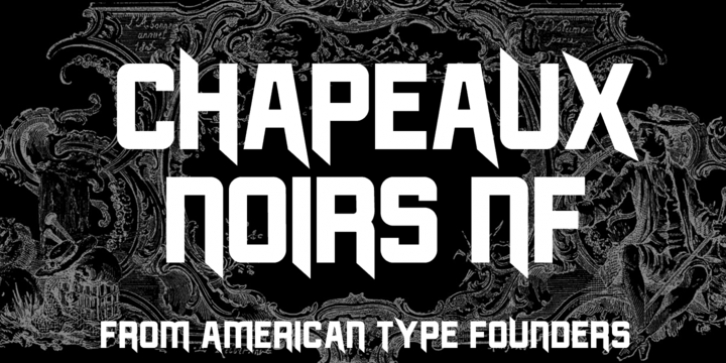
A simple stylistic device gives this clean, bold sans serif face a slightly spooky feeling. Both versions of this font support the Latin 1262, Central European 1250, Turkish 1254 and Baltic 1257 codepages.